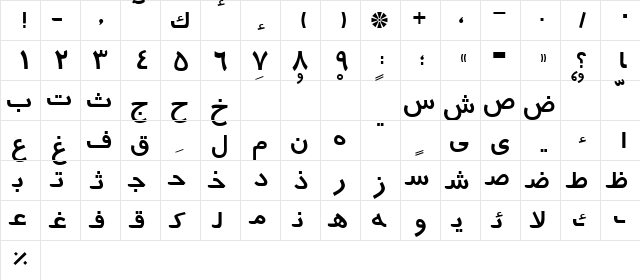
Arabic7TypewriterSSK Regular
Design Context for Arabic7TypewriterSSK Typeface
Arabic7TypewriterSSK brings the precise, column-aligned rhythm of monospaced typography to designs that value technical clarity and systematic order.
Well-suited to data-driven dashboards, coding tutorials, and any design that wants to reference the world of programming.